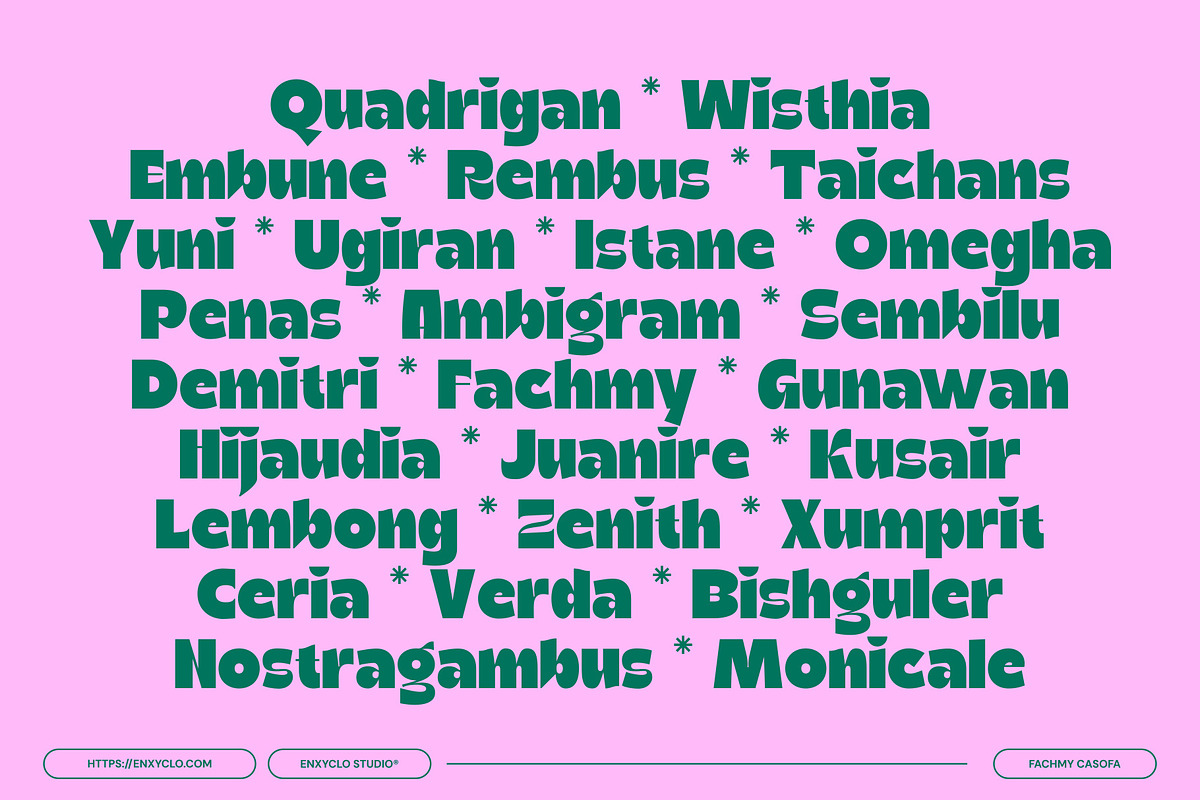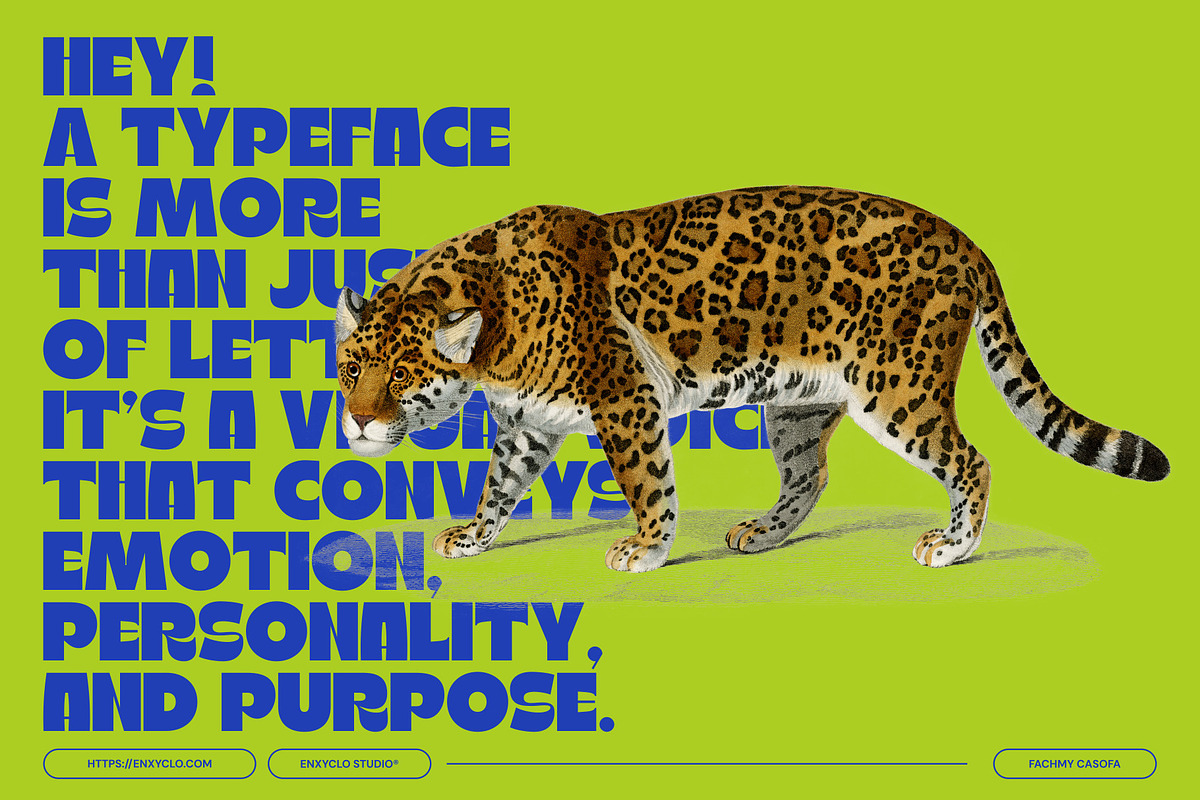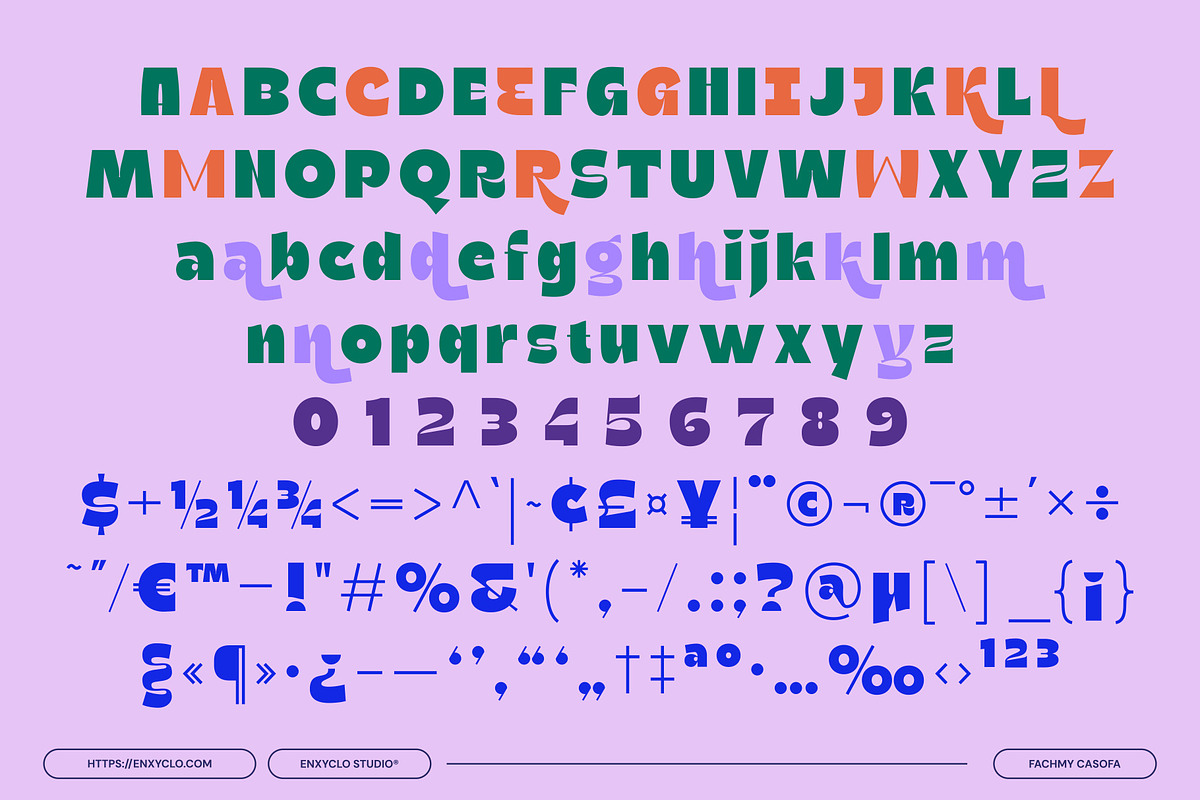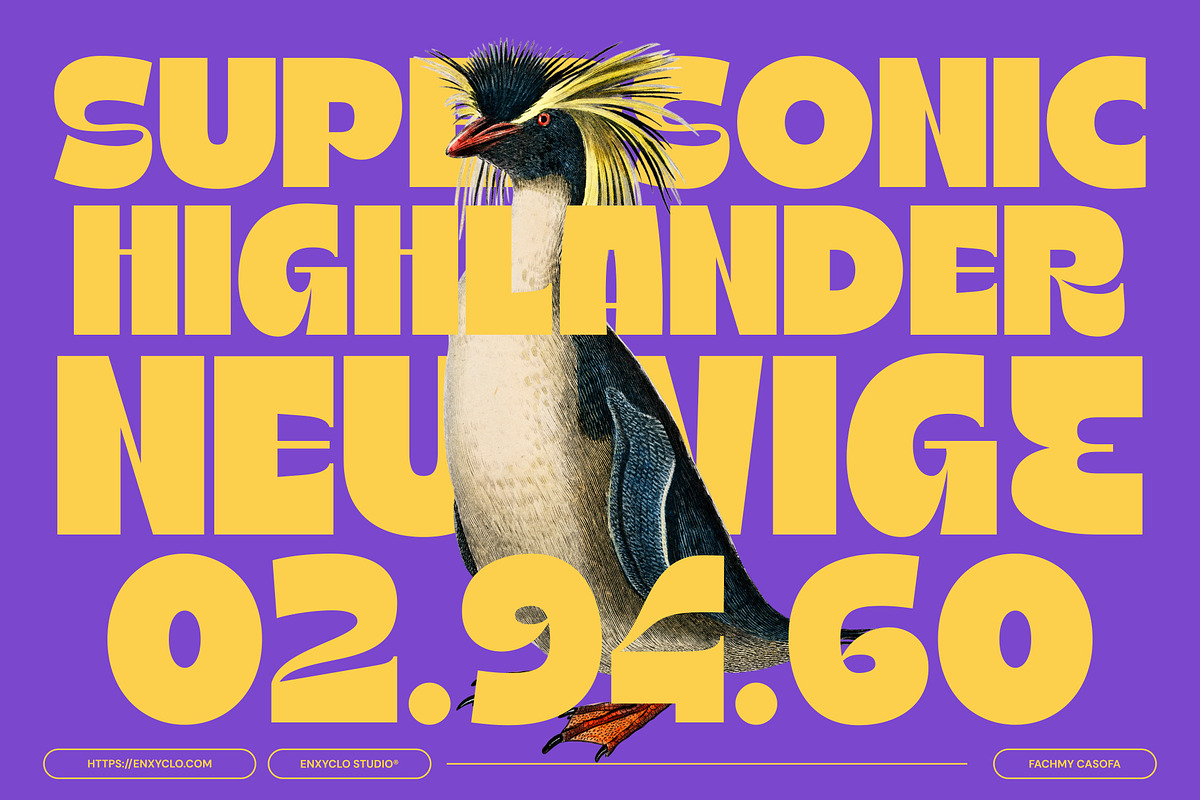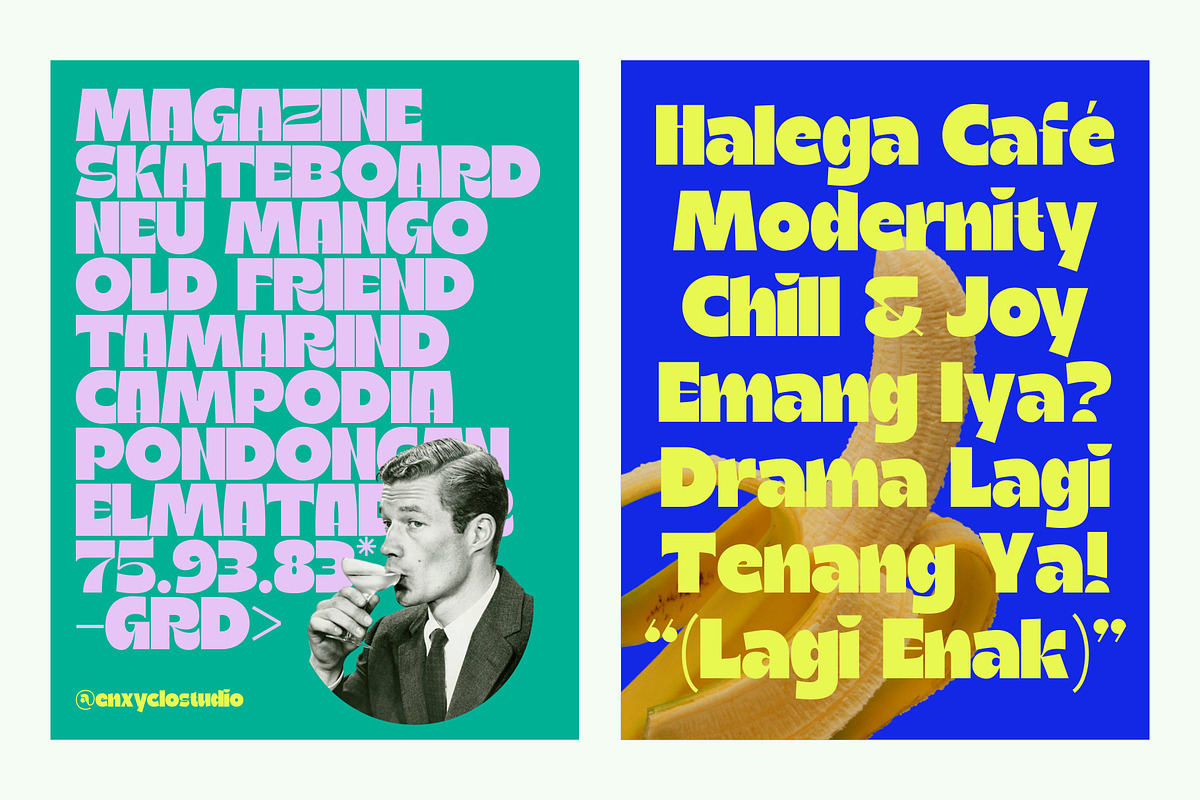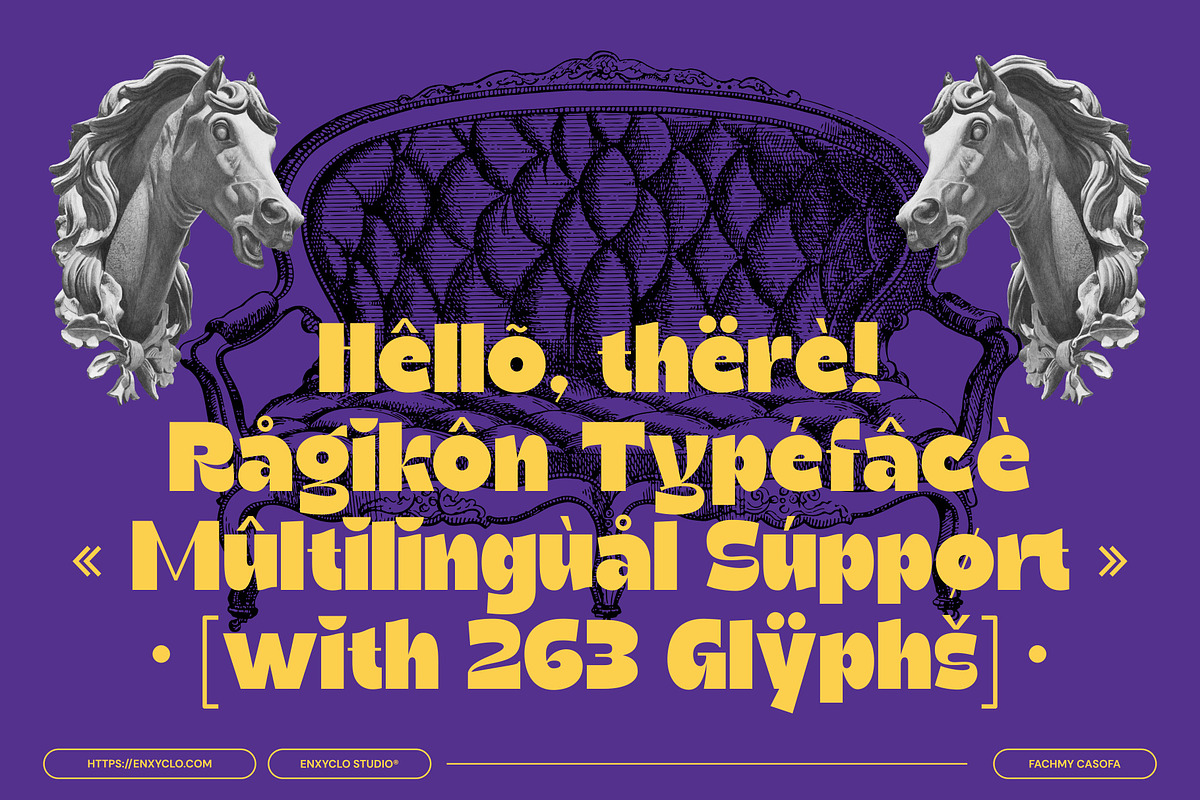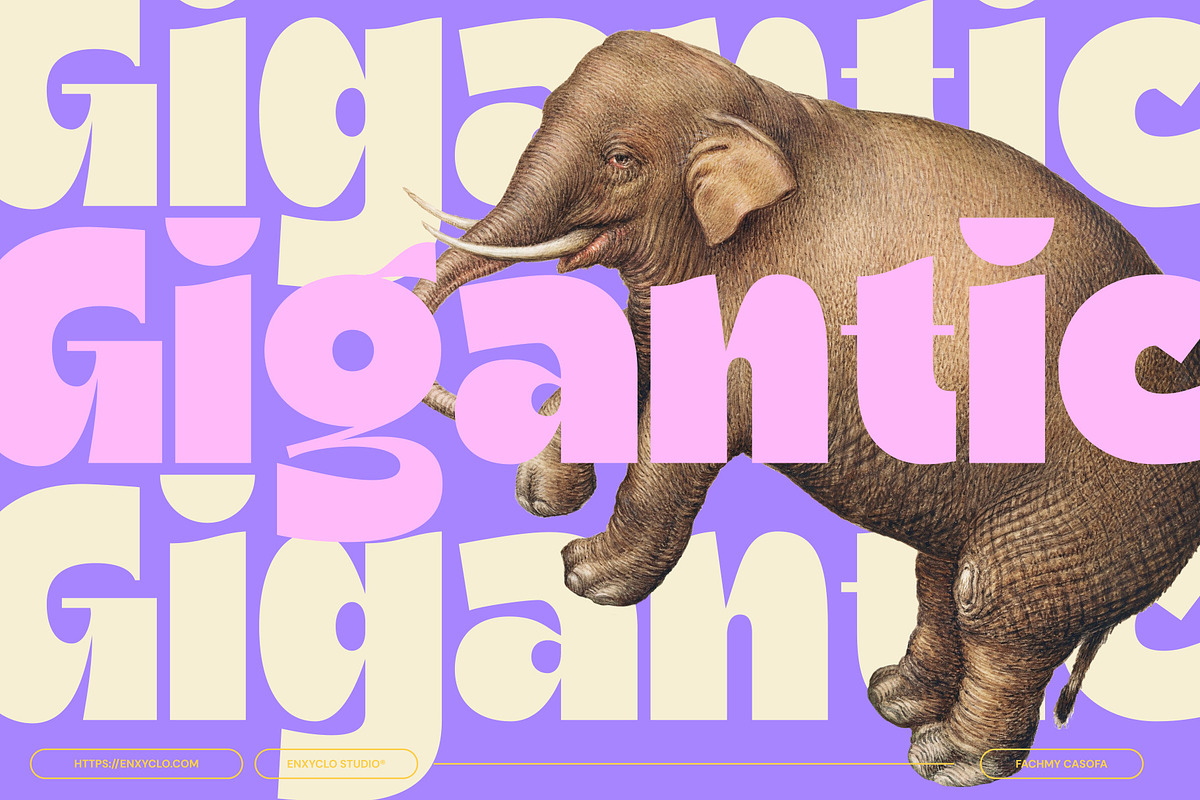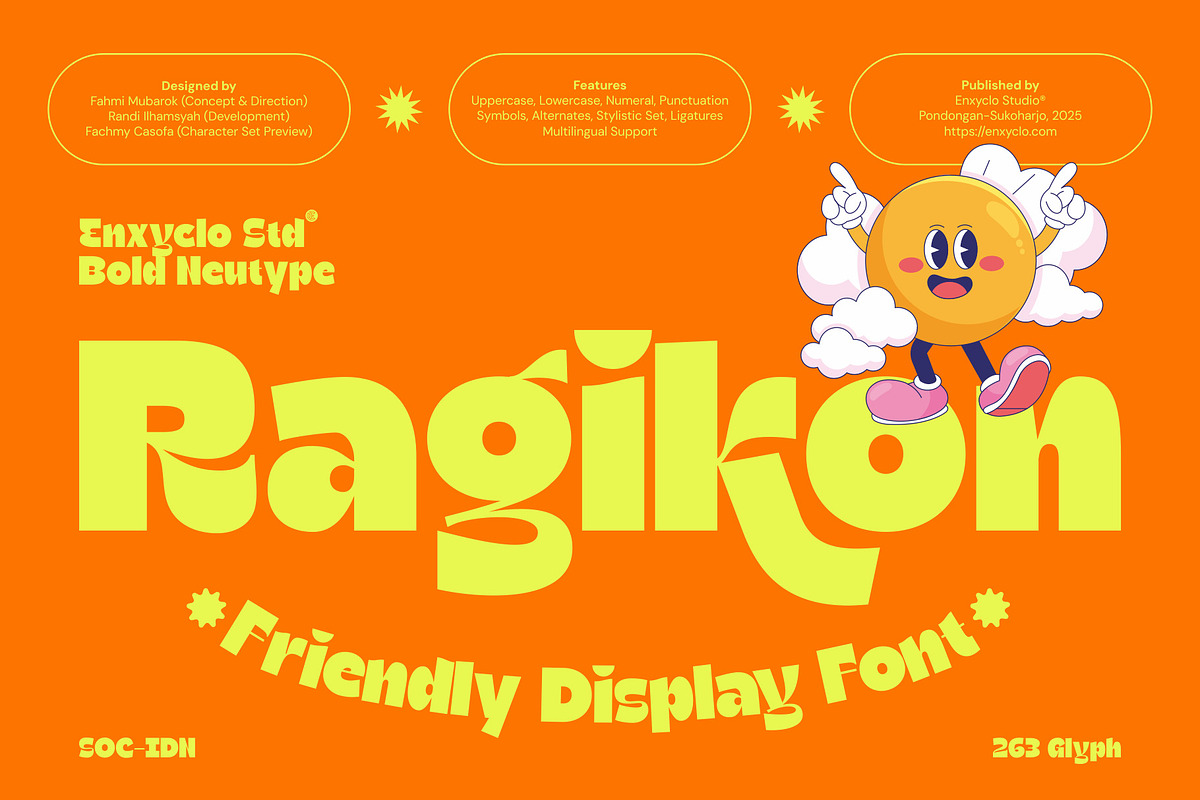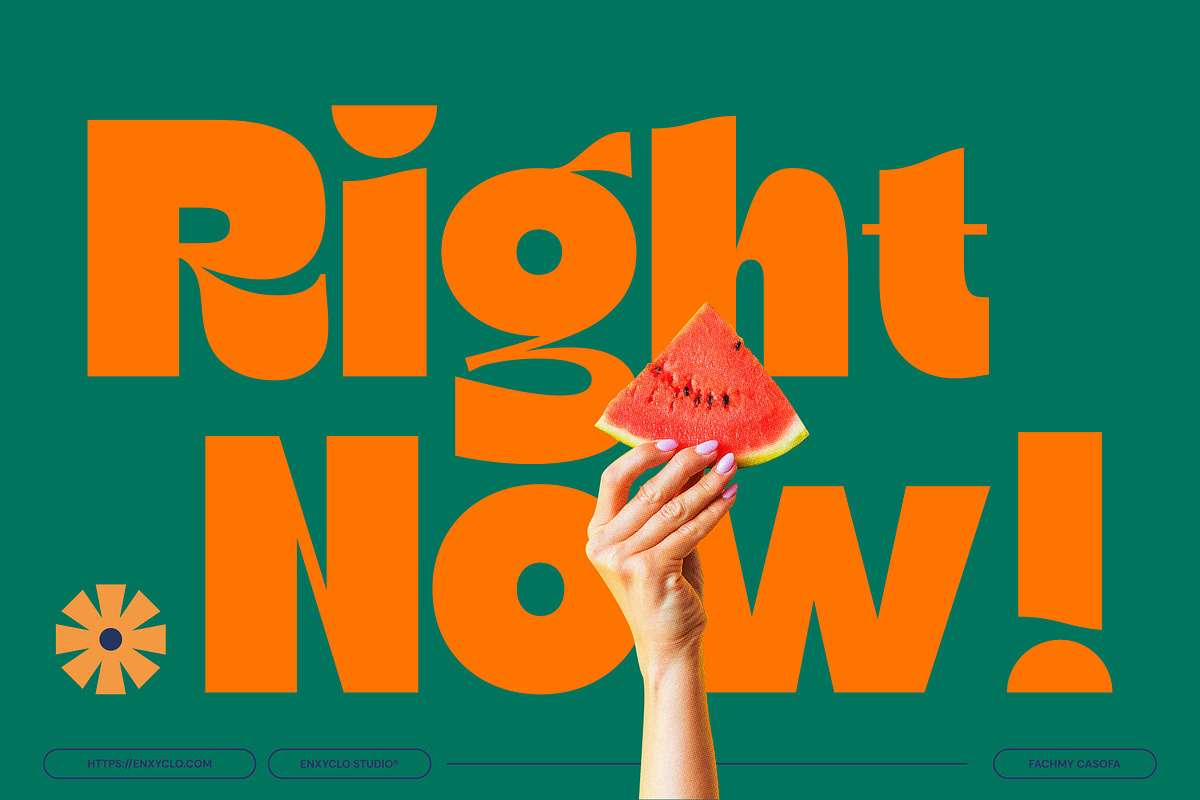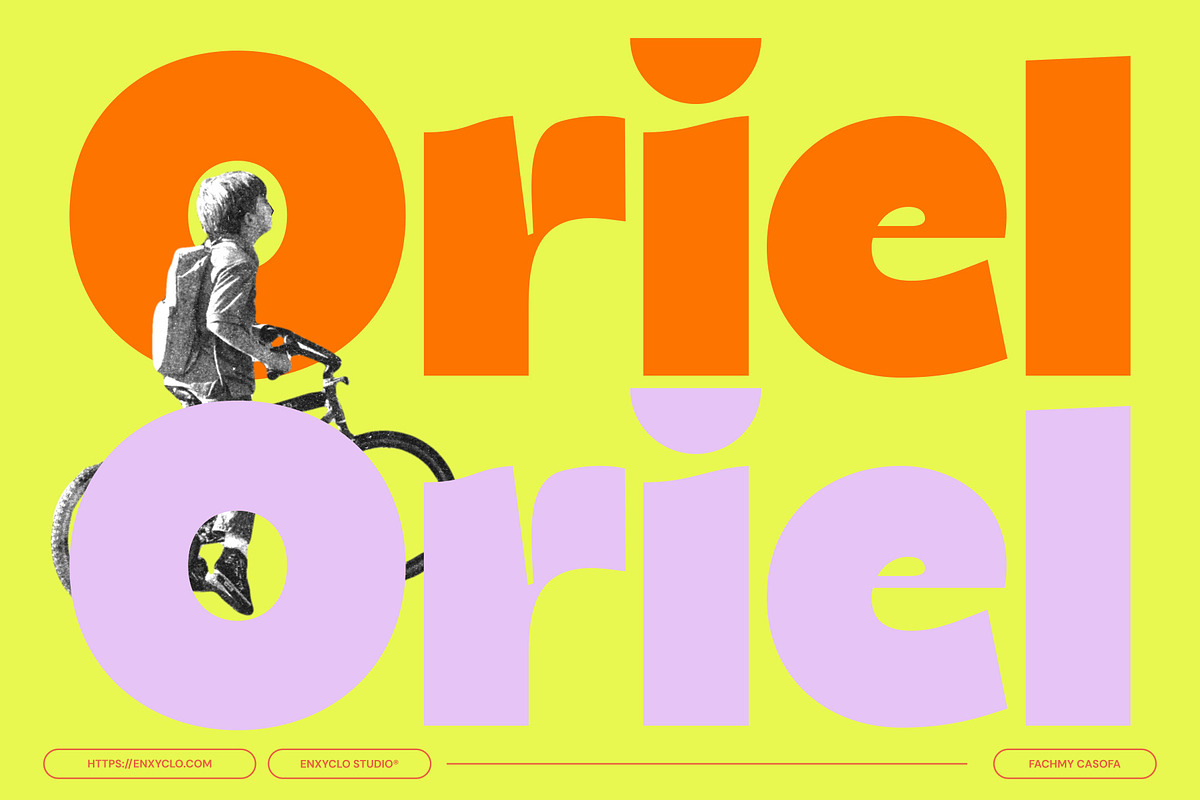
Ragikon - Playful & Chunky Font
Ragikon is a friendly, bold display font that radiates the vibrant spirit of summer. Its playful and chunky letterforms bring a warm, approachable vibe, making it perfect for eye-catching designs that need to stand out. Whether you’re creating fun branding, lively posters, or quirky packaging, Ragikon offers the perfect blend of personality and readability with a modern twist. Crafted to be a versatile typeface, Ragikon shines in bold headlines and display use, infusing any project with energy and friendliness. Its distinctive style captures the sunny essence of summer, making it ideal for brands and creatives who want to communicate warmth, joy, and bold creativity through their font choice.
Feature:
- Friendly, bold display typeface
- Includes uppercase, lowercase, numerals, and punctuation
- Stylistic sets and alternates for customization
- Ligatures included for smooth typography
- Multilingual support for diverse usage
- 263 glyphs for versatile application
- Summer-themed branding and logos
- Bold headlines and posters
- Friendly product packaging
- Children’s books and educational materials
- Fun social media graphics
- Playful boutique and lifestyle brands